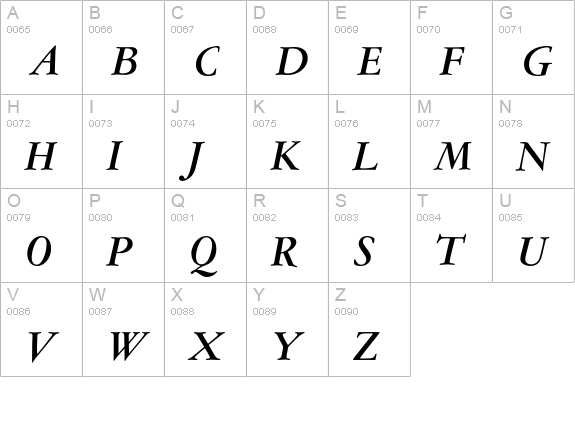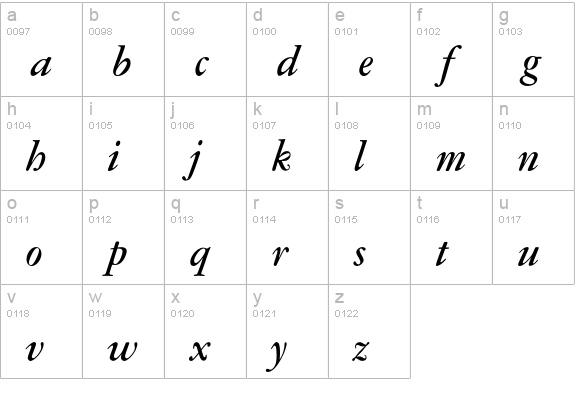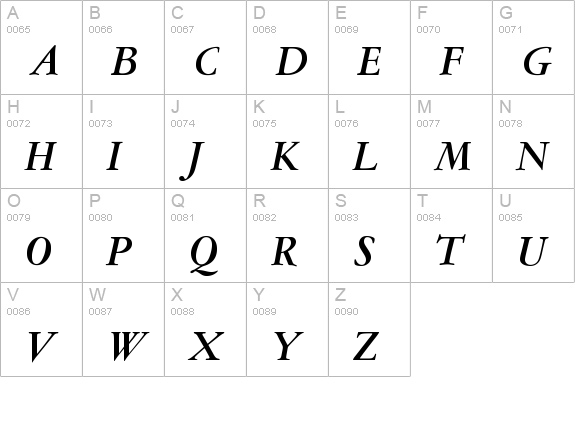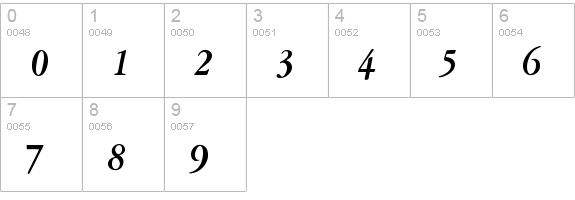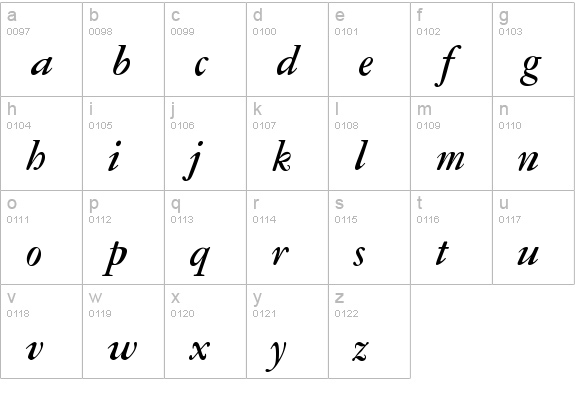
Garamont AMSTERDAM Medium Italic is a balanced, medium-weight, italic variant in the Garamont typeface family \xE2\x80\x94 well suited to sub-headlines, navigation, and balanced editorial work.
Garamont AMSTERDAM Medium Italic font is a timeless and elegant typeface that exudes sophistication and charm. Its slanted design adds a touch of dynamism, making it perfect for conveying a sense of movement and style in your projects. The fluid curves and balanced proportions of this font make it a versatile choice for a wide range of design applications. What sets Garamont AMSTERDAM Medium Italic font apart is that it is available for free download at FontsMarket.com. This means that you can easily access and use this beautiful font in your creative projects without any cost. Whether you are working on branding materials, editorial designs, or digital content, Garamont AMSTERDAM Medium Italic font is sure to elevate your work and leave a lasting impression on your audience.